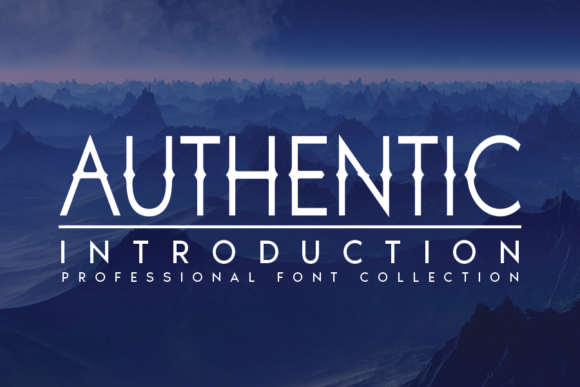
The Quest for the Perfect Font: Discovering Authentic
I’ll never forget the time I was working on a branding project for a trendy new cafe. My client was specific about wanting a modern, clean look that would appeal to the young and hip. I spent hours scouring font libraries, trying to find the perfect match. That’s when I stumbled upon Authentic, a sleek and sophisticated sans serif font that instantly caught my eye.
Authentic is described as a “modern and neat lettered yet distinct sans serif font” that can easily be matched to an incredibly large set of projects. In this article, I’ll share my experience with Authentic, including what I love about it, some quirks to watch out for, and how to make the most of its features in popular design platforms.
An Honest Review of Authentic
- ✨ Modern and clean aesthetic: Authentic has a fresh, contemporary feel that’s perfect for projects that need a sleek look.
- ✅ Highly versatile: This font can be used for a wide range of projects, from branding and advertising to packaging and digital media.
- 💡 Distinctive character: Authentic has a unique personality that sets it apart from more generic sans serif fonts.
While Authentic is an excellent font, there are a few things to keep in mind:
- ⚠️ Limited language support: Authentic primarily supports Latin-based languages, so if you need to work with non-Latin scripts, you may need to look elsewhere.
- 🤔 Some glyphs may require manual adjustment: Depending on your design, you may need to tweak certain glyphs to get the perfect fit.
- Experiment with OpenType features, such as Stylistic Alternates, to add visual interest to your text.
- Access OpenType features, such as Glyphs and Stylistic Sets, to customize your text.
The Story Behind Authentic
While I couldn’t find any information on the designer’s personal story, it’s clear that Authentic was created with the goal of providing a modern, versatile font that could be used in a wide range of projects. The font’s clean lines, distinctive character, and OpenType features make it an excellent choice for designers looking for a reliable, high-quality font.
Q: What type of projects is Authentic best suited for?
A: Authentic is an incredibly versatile font that can be used for a wide range of projects, including branding, advertising, packaging, and digital media.
Q: Does Authentic support non-Latin languages?
A: Authentic primarily supports Latin-based languages, so if you need to work with non-Latin scripts, you may need to look elsewhere.